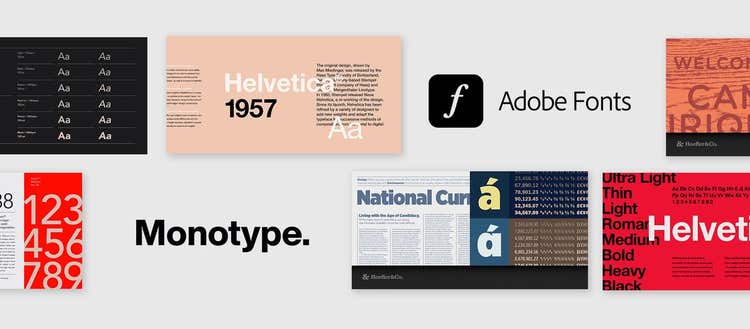
Love Helvetica? Can't get enough of Arial? Craving Times New Roman? Today is your lucky day! We’ve added more than 1,500 new fonts to Adobe Fonts, including many of the most popular fonts of all time from Monotype. This is our largest font expansion in five years – and it comes at no extra cost.
Here are a few of the favorites included in this addition:
- Helvetica — The go-to font for everything from branding to editorial design
- Gotham — A sleek, modern typeface used by designers worldwide
- Avenir — A timeless sans-serif perfect for digital and print projects
This update also includes:
- Times New Roman — A classic for reports, resumes, and editorial layouts
- Arial — A universal favorite for presentations and business documents
- Proxima Nova — One of your favorite sans-serifs, expanded into four more languages
Stay on brand, every time
We know how important brand consistency is. With this update, you’ll have access to fonts that keep your work looking polished and professional, no matter where you design. Here are a few of the advantages of this update:
- The go-to fonts for every use: Whether you’re designing a logo, creating marketing materials, or preparing a business proposal, we’ve got you covered.
- Seamless creativity, anywhere you work: Your type stays consistent across every device and app. Whether you're designing in Photoshop, Illustrator, InDesign, or Express — on desktop, mobile, or web — your fonts are always accessible, wherever inspiration strikes.
- Fewer frustrating missing fonts pop-ups: These updates reduce friction when sharing designs containing commonly used fonts
With over 30,000 fonts, Adobe Fonts is a powerful and versatile font library for creators everywhere. Whether you’re designing for print, digital, or across languages, you’ll always have the right type at your fingertips.